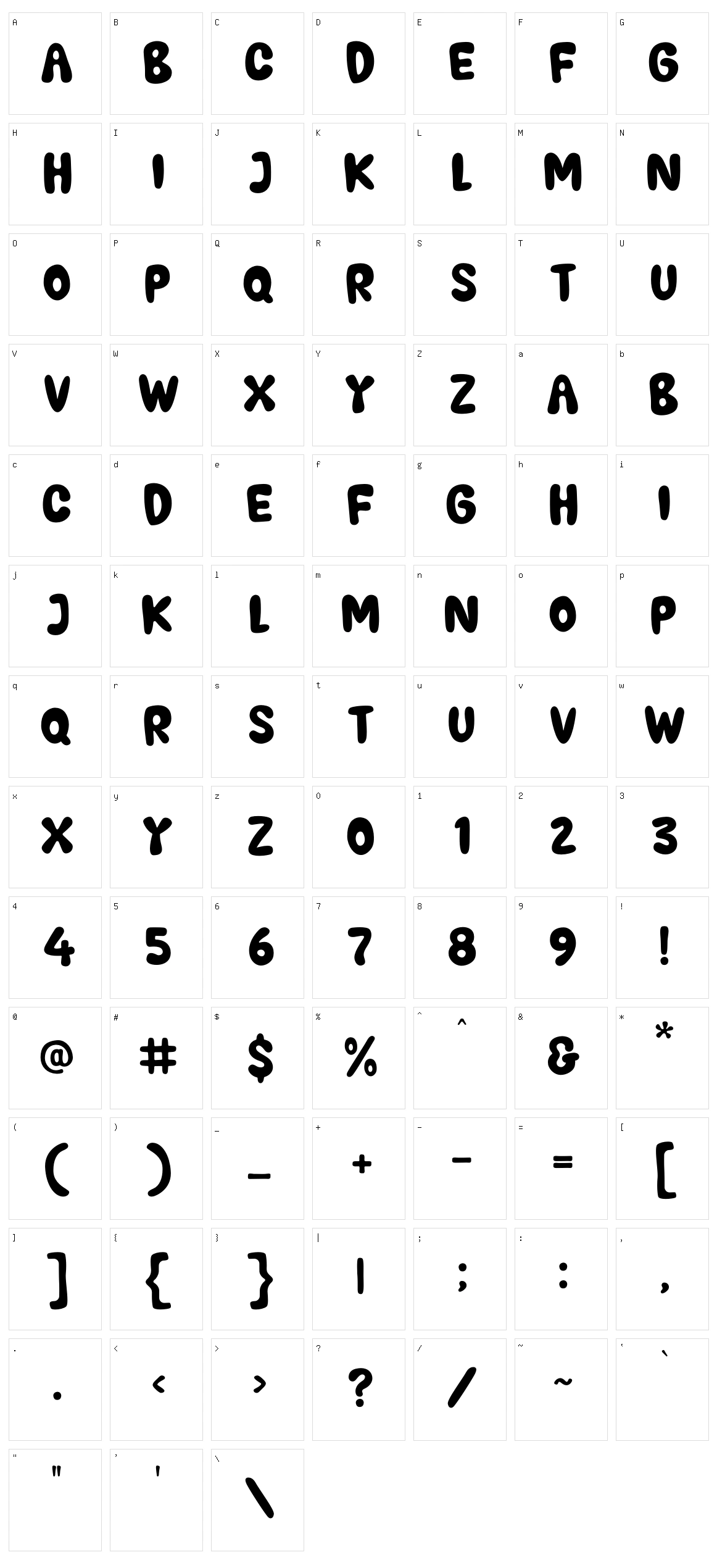
The free font Bigger Summer Fest is carefully designed by Storytype Studio, showcasing a thoughtful balance of creativity and usability and falls under the Cartoon font style. When you download the ZIP file, it contains only 22.9 KB of font files, making it lightweight and quick to download. Please review the license details below to understand permitted usage and distribution rights. If license information is not available, we recommend using this font for personal projects only or contacting the author directly for commercial usage permissions.